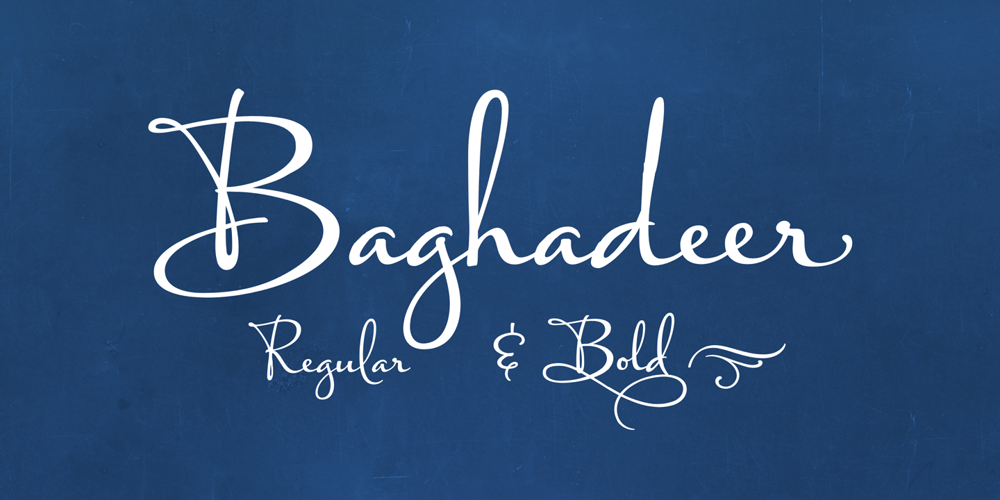
Baghadeer Font Family was designed by Stephen W. Rapp and published by Stephen Rapp. Baghadeer contains 2 styles and family package options. Baghadeer, from the hand of Stephen Rapp, is an upright connecting script brimming with personality. With its exuberant capitals, dashing crossover strokes, and rhythmic pulse; it retains the active spirit most associated with slanted scripts, but with the grounded presence of an upright. Baghadeer contains 780 glyphs featuring a plethora of swashes, ligatures, and alternate letters to individualize the look of your project. There is also a set of small caps and ornamental flourishes to add some finishing touches. It contains feature programming to make typesetting seamless and has all the language coverage you’d expect in a pro font.